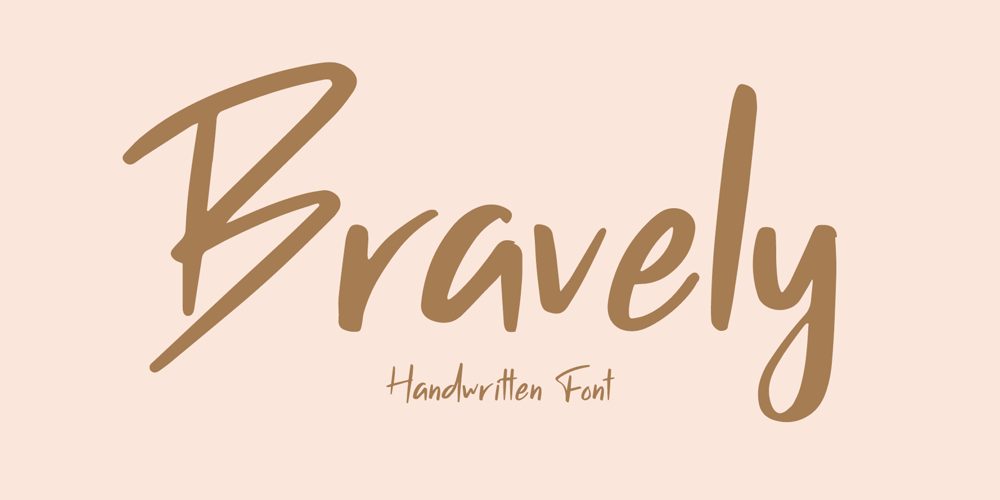
Bravely Font Family was designed by Trio Nazzar Saputra, Wahyu Hadi Yuana and published by Craft Supply Co. Bravely contains 1 styles and family package options. Bravely- Handwritten Font is an handwritten script font based on the expression of real handwriting, lets you transform type into an exciting and beautiful piece of work. The irregular, hand-lettered look adds a real human touch to things and comes along with a lot of loving details. Combine all font-styles the way you want, add some ornamental swashes or banners and even a single word becomes magnificent.